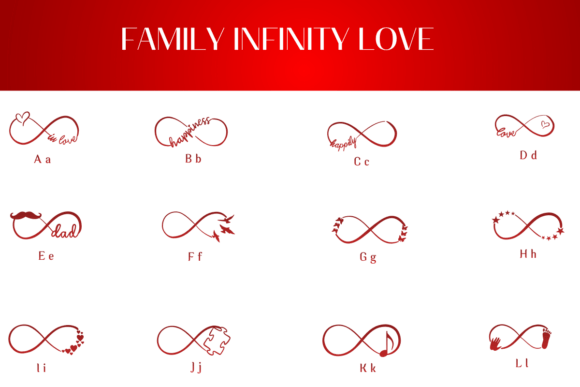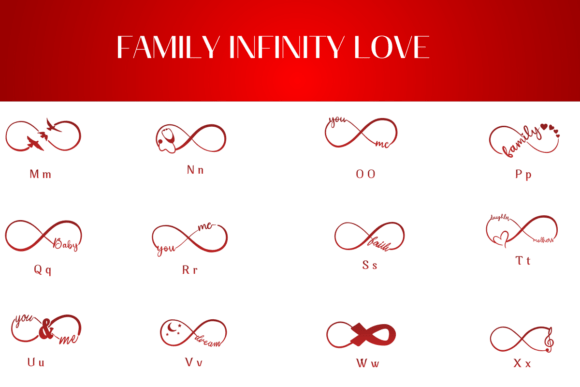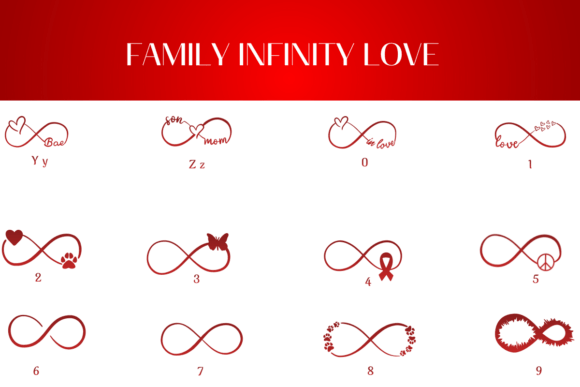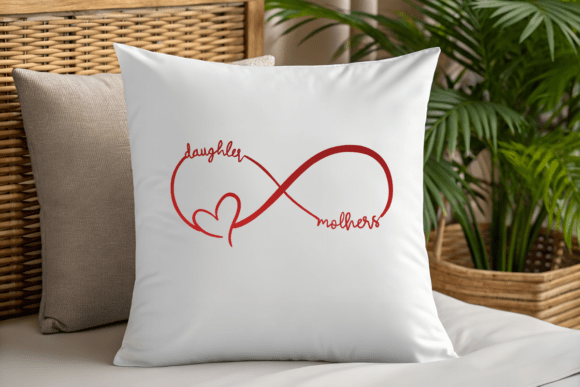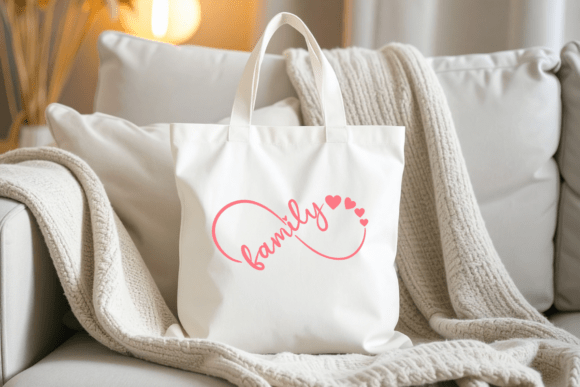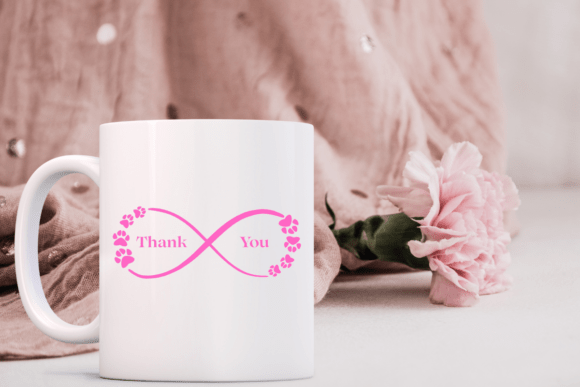
Introduction to Family Infinity Love Font
Have you ever stumbled upon the perfect font while working on a creative project, and suddenly, everything falls into place? For designers and crafty enthusiasts, discovering a high-quality font like the Family Infinity Love Font can be a game-changer. This versatile dingbats typeface has been making waves in the design community with its unique blend of infinity loops and heartwarming symbols.
As a go-to design resource, the Family Infinity Love Font offers a vast library of decorative symbols centered around connection and eternity. From baby motifs to family names, this font has everything you need to create personalized merchandise that speaks directly to the heart. With its transparent background and free download option, it’s the perfect addition to any designer’s toolkit.
Key Features of Family Infinity Love Font
- Unique and Creative Design: The Family Infinity Love Font is specifically designed for creative projects, offering a high-quality and visually appealing design that can add a personal touch to any project.
- Transparent Background: The Family Infinity Love Font features a transparent background, allowing users to easily overlay text on images and other design elements.
- Easy to Use: The Family Infinity Love Font is easy to use, with a simple and intuitive design that makes it accessible to designers of all skill levels.
Honest Review: Family Infinity Love Font
I recently stumbled upon the Family Infinity Love Font while searching for a high-quality font to enhance my creative project. I was excited to give it a try and see if it would meet my expectations.
- The Family Infinity Love Font is incredibly versatile and can be used for a variety of design projects, from wedding invitations to social media graphics.
- The font may not be suitable for formal or professional designs, as it has a more playful and cursive feel.
- The font may not be available in as many font styles or weights as some other popular fonts.
Overall, I was impressed with the Family Infinity Love Font and would recommend it to designers looking for a high-quality, free font to add some personality to their creative projects.
Family Infinity Love Font is ideal for designs that require a touch of love and elegance, such as:
- Wedding invitations and decorations
- Love-themed posters and flyers
- Valentine’s Day designs and cards